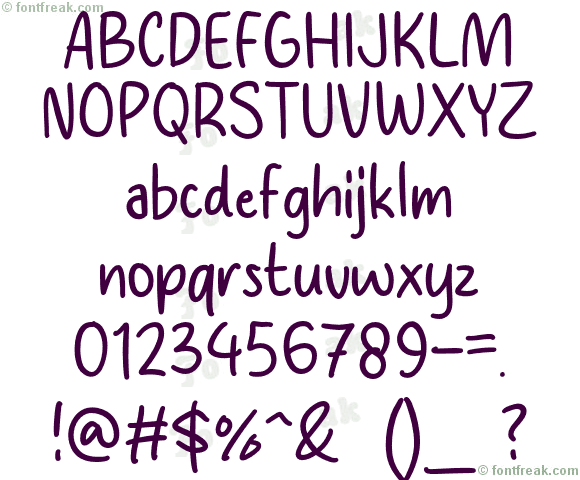
Salmon Season
Salmon Season by MJType is a delightful display font that captures a playful, handwritten aesthetic. With a unique flair, this font enjoys a medium stroke weight that provides a balanced appearance while maintaining legibility. The natural flow of its characters gives it an organic feel, making it suitable for a variety of creative projects. The spacing between letters is thoughtfully designed, ensuring that each element stands out without feeling crowded, enhancing both readability and visual appeal.
This font is versatile and can be used in numerous applications. It is particularly well-suited for wedding invitations, where its charming style can add a personal touch to the event. Additionally, it works wonderfully on restaurant menus, lending a warm and inviting atmosphere that can entice patrons. Salmon Season is also an excellent choice for crafting eye-catching movie posters, where its distinctive character can help capture the essence of a film. For content creators, using this font in social media graphics can elevate posts, making them more engaging and visually appealing.
What sets the Salmon Season font apart is its ability to evoke a sense of warmth and creativity, making it a fantastic choice for both personal and professional use. This font not only stands out visually but also resonates with the audience, making it a memorable addition to any design. Don't miss the chance to enhance your projects with the Salmon Season font free download.